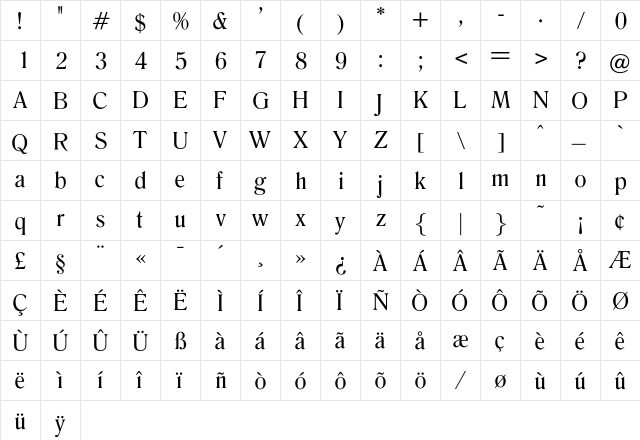
Emilia Regular
Design Context for Emilia Typeface
Emilia is a composed and adaptable typeface that performs quietly and consistently across a wide range of design contexts.